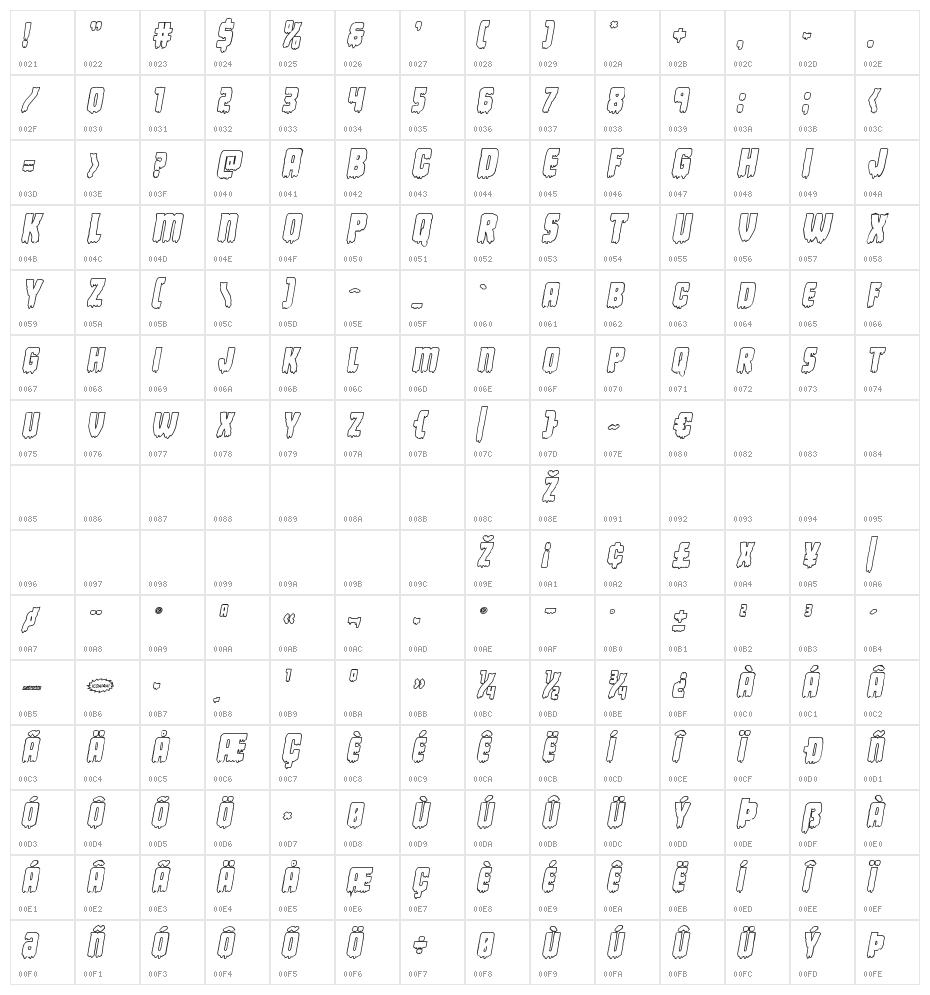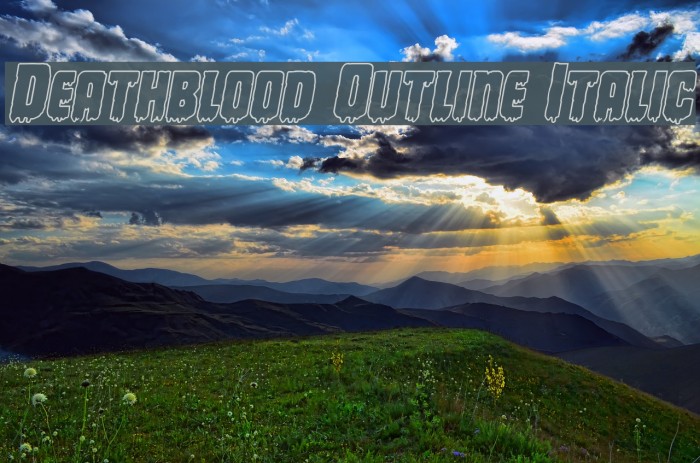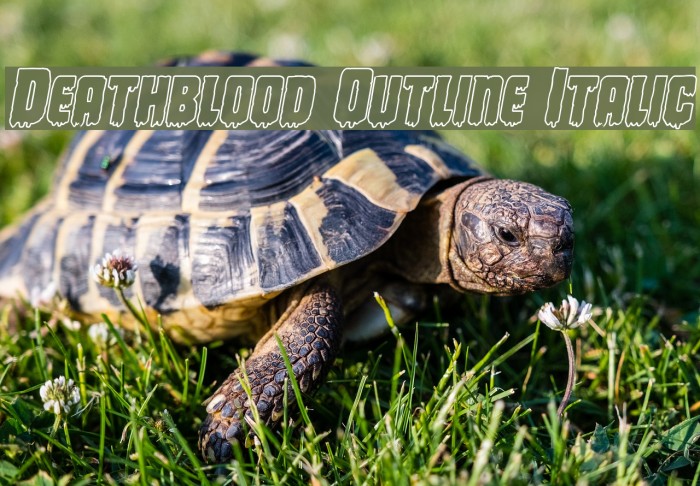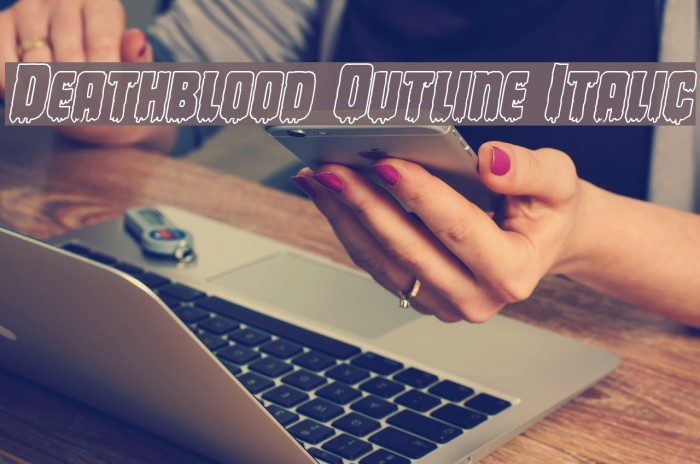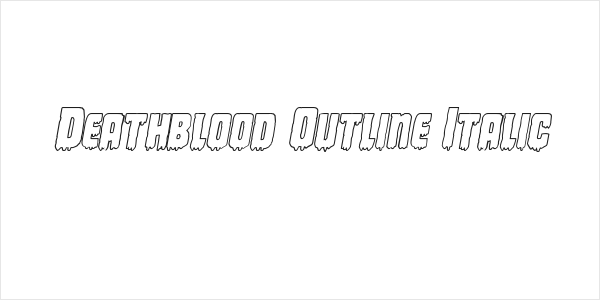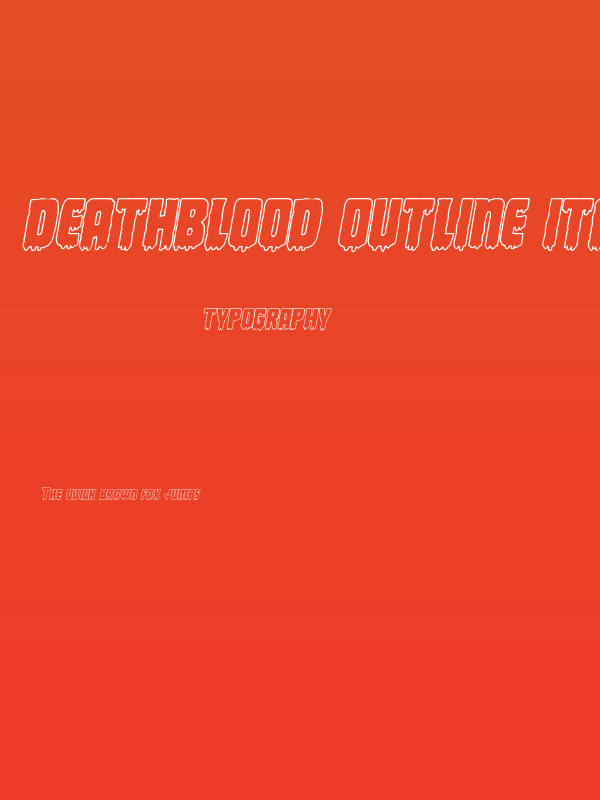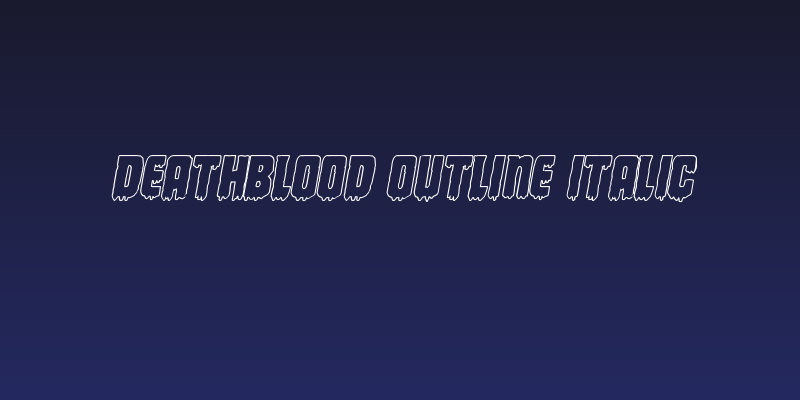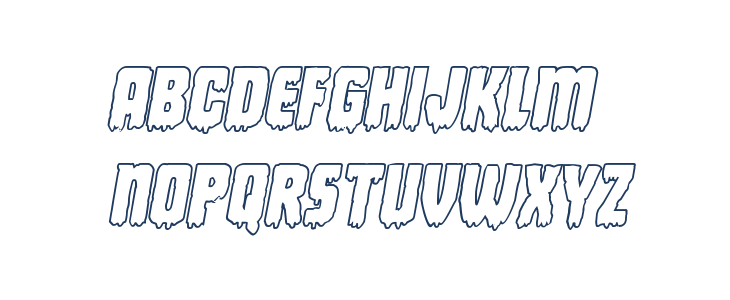
Deathblood Outline Italic Font
Deathblood Outline Italic Description
This font features a bold, outlined style with a dripping effect that gives it a spooky, horror-themed appearance. The characters are uppercase and have a slightly italicized slant, enhancing their dynamic and edgy look. The outline is consistent and thick, providing a strong visual impact. The font's unique design makes it ideal for Halloween-themed projects or any design that requires a touch of the macabre. The numbers and special characters maintain the same dripping effect, ensuring a cohesive look across all elements.
| Proposed Projects | Ideal for Halloween posters, horror movie titles, themed party invitations, or any design requiring a spooky aesthetic. |